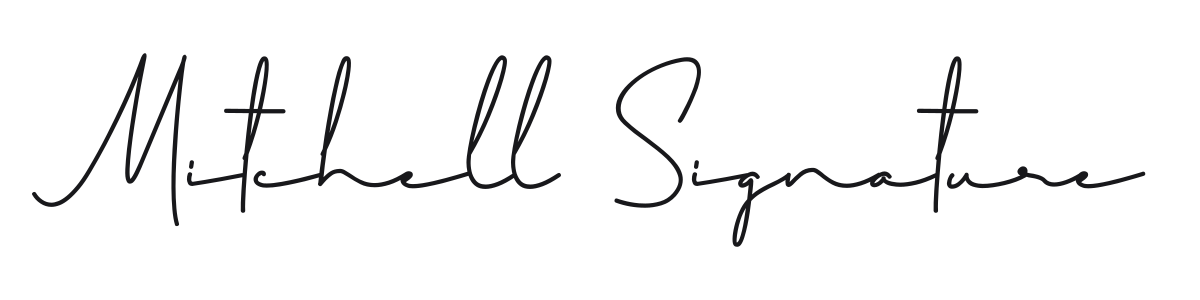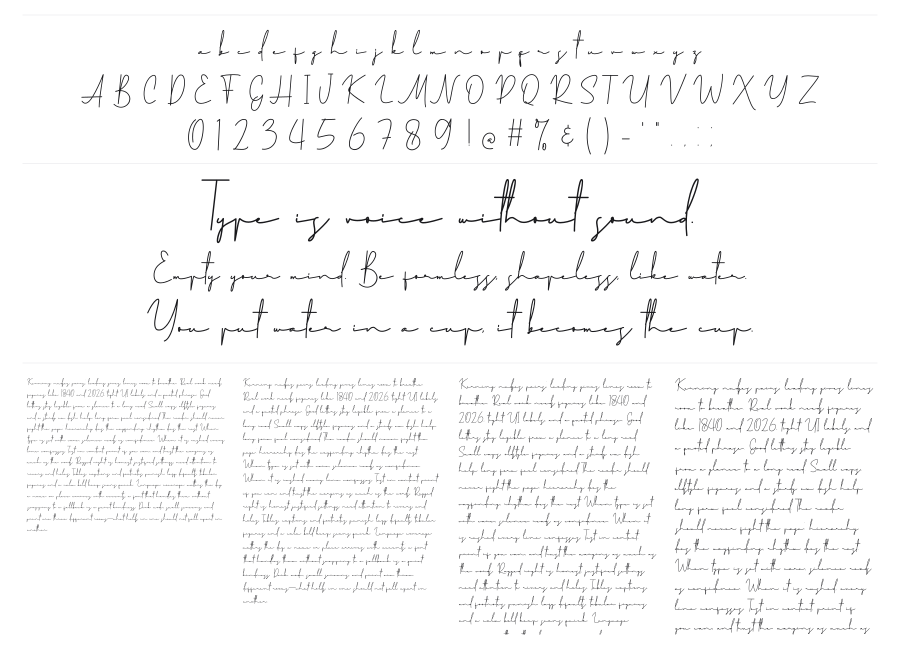
Mitchell Signature
Mitchell Signature is a thin, flowing signature script that mimics the loose rhythm of a handwritten personal autograph. Long looping ascenders and trailing descenders give it an expressive, gestural quality that reads as naturally hand-penned rather than constructed. It works best large, where the fine hairline strokes and continuous flow can breathe.